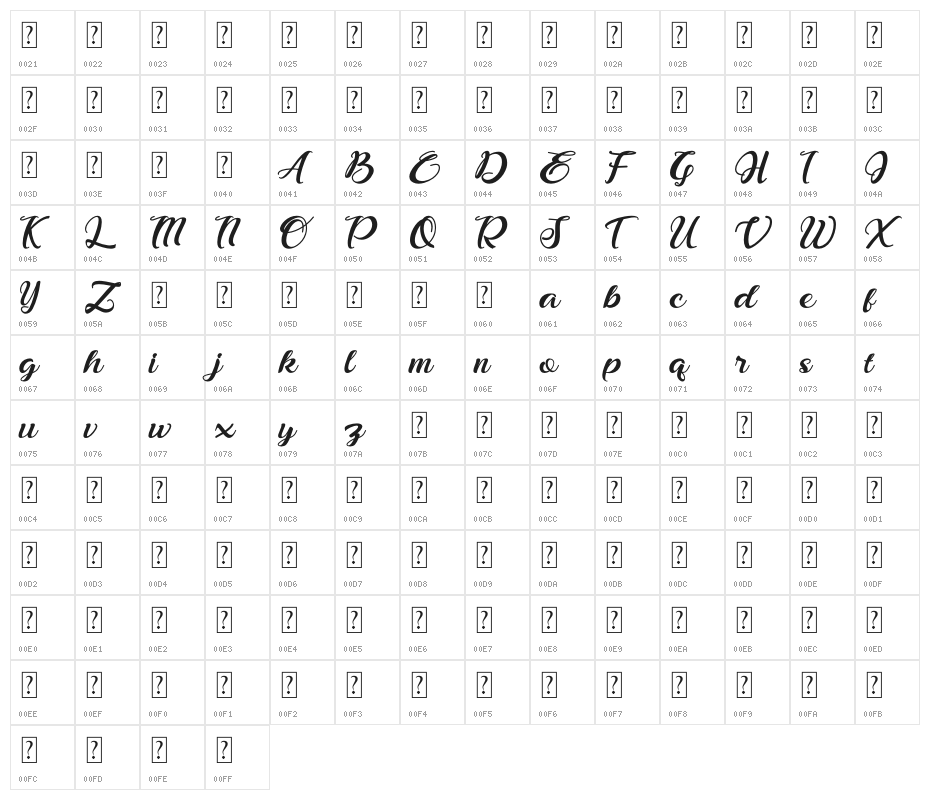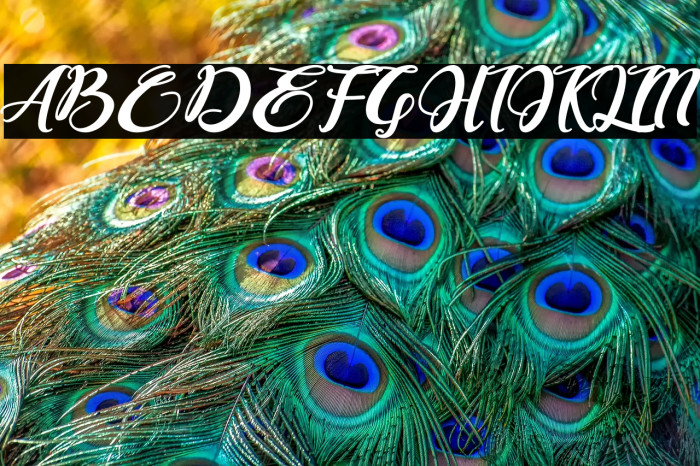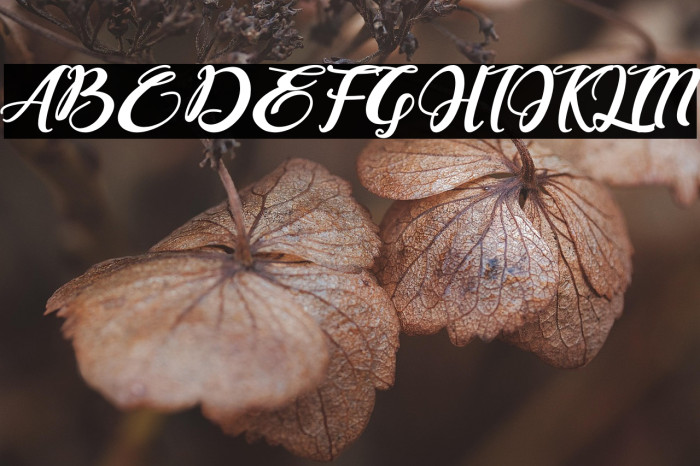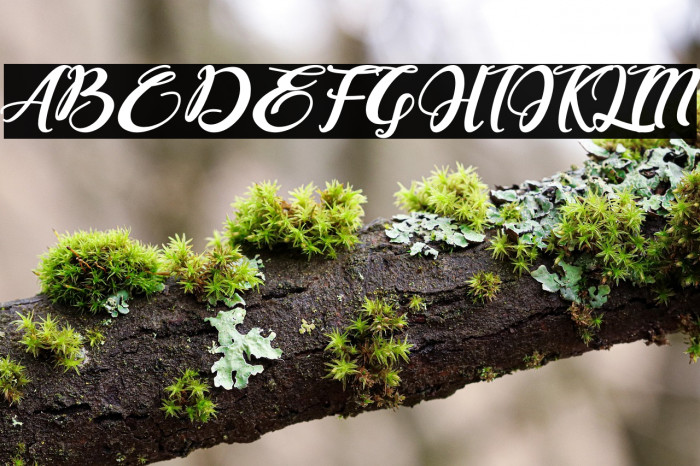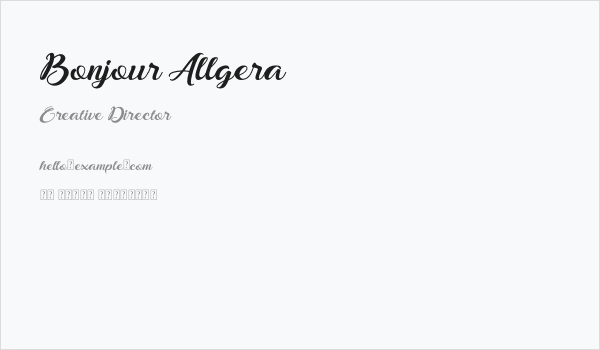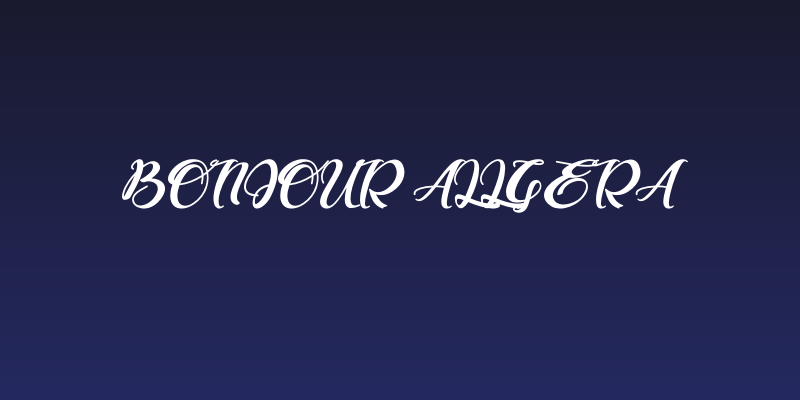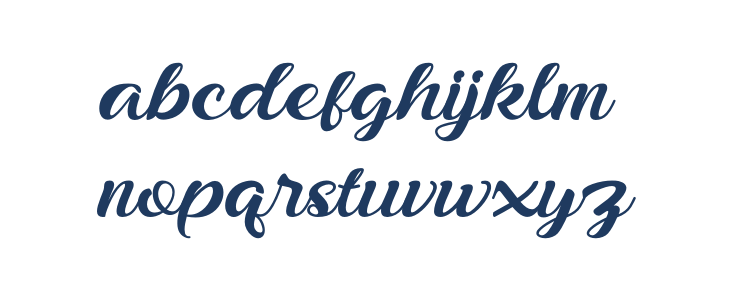
Bonjour Allgera Font
Bonjour Allgera Description
This elegant script font features smooth, flowing lines and a classic calligraphic style. The uppercase letters are ornate, with sweeping curves and flourishes that give a sense of movement and grace. The lowercase letters maintain a consistent flow, enhancing readability while preserving the decorative appeal. The font is designed with a medium contrast in stroke thickness, adding to its sophisticated appearance. The character spacing is normal, ensuring legibility without compromising the aesthetic. This font is ideal for projects that require a touch of elegance and formality.
| Proposed Projects | Wedding invitations, elegant branding, formal event programs, greeting cards, and upscale packaging. |